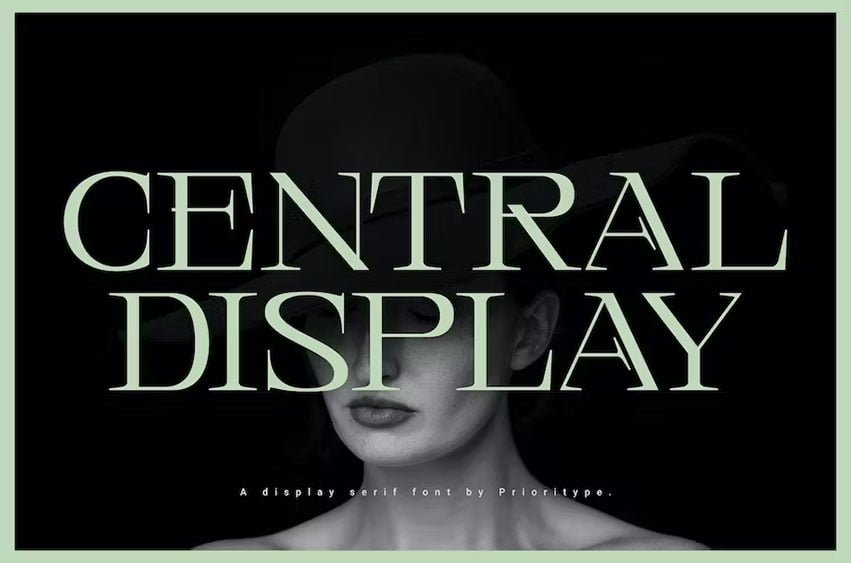
Central Display Font is a Display Serif Font (All Caps). This typeface is inspired by fashion magazines. Strong and classy character. The main display is very suitable. For example in poster design, branding, social media posts, magazine covers and so on.
- Features: Uppercase, Lowercase, Numeral, Punctuation & Multilingual.